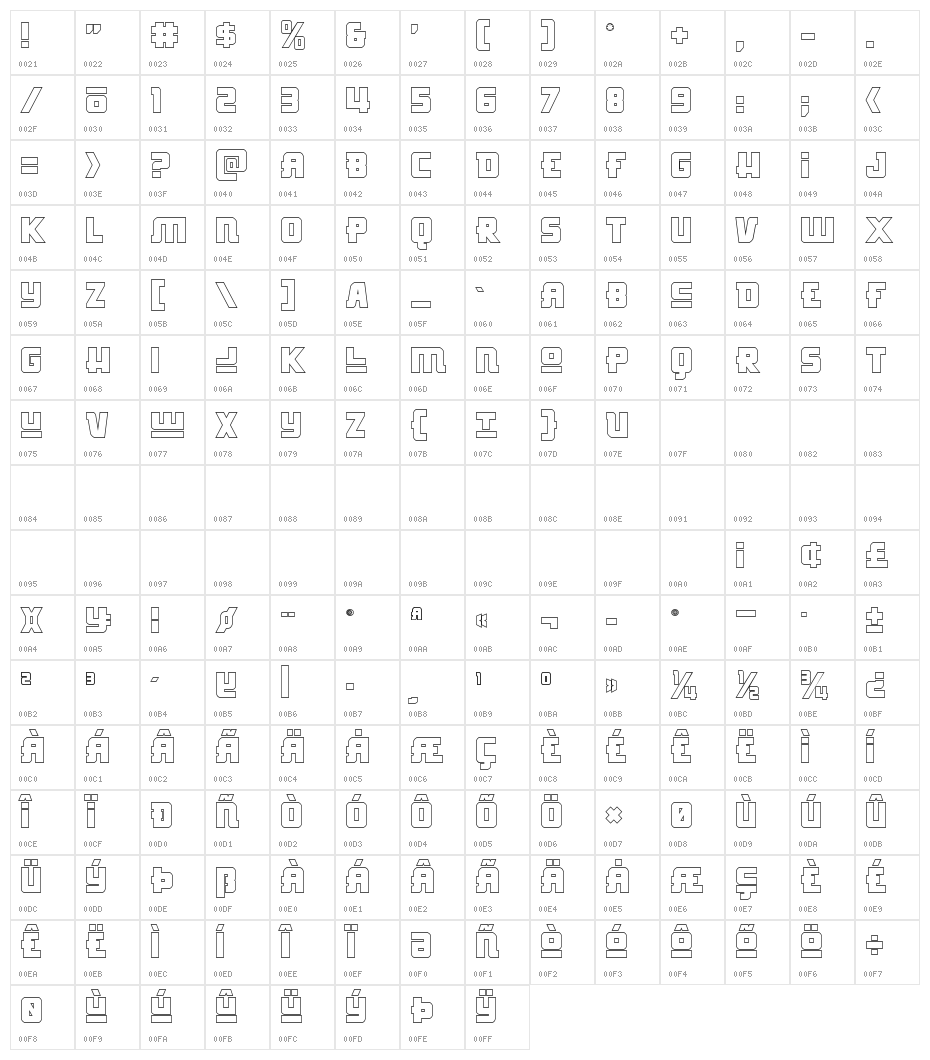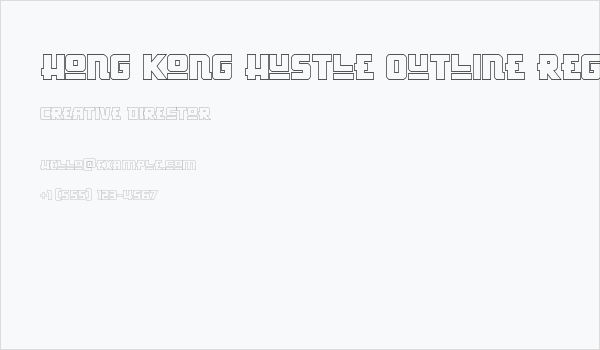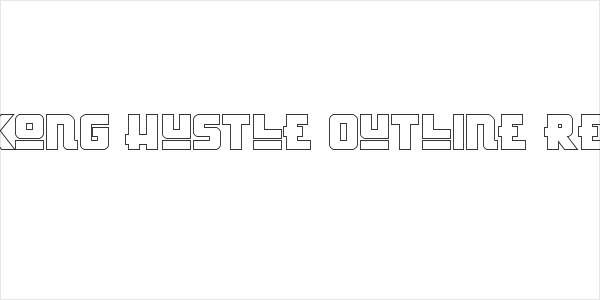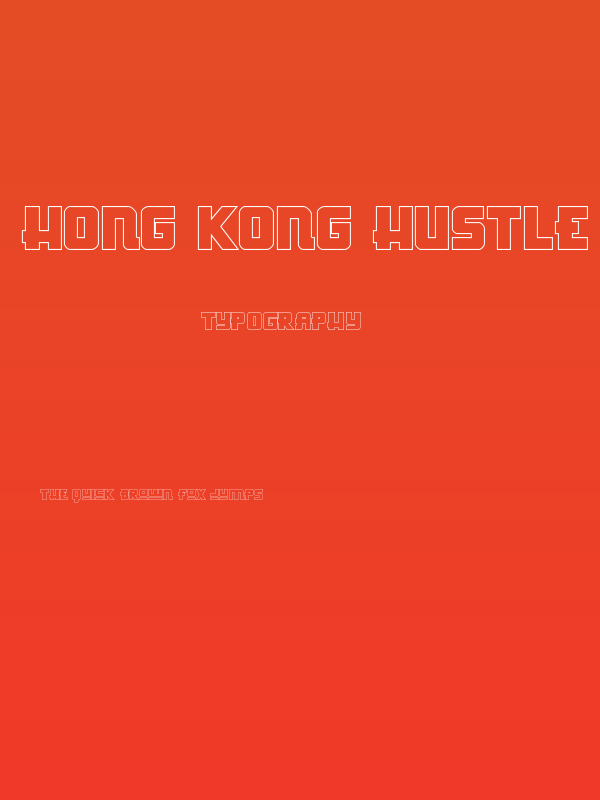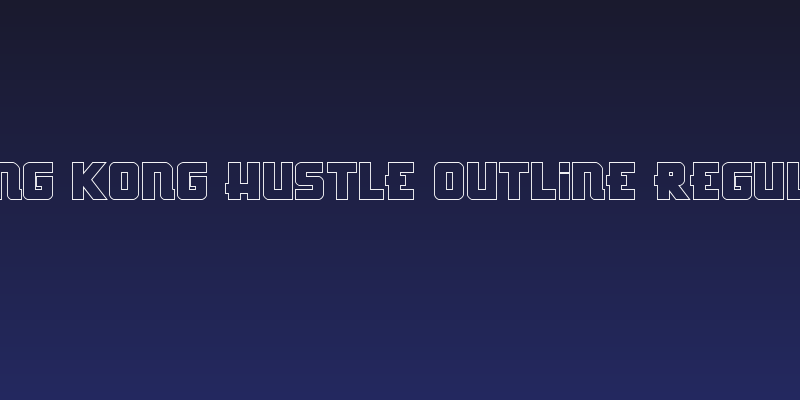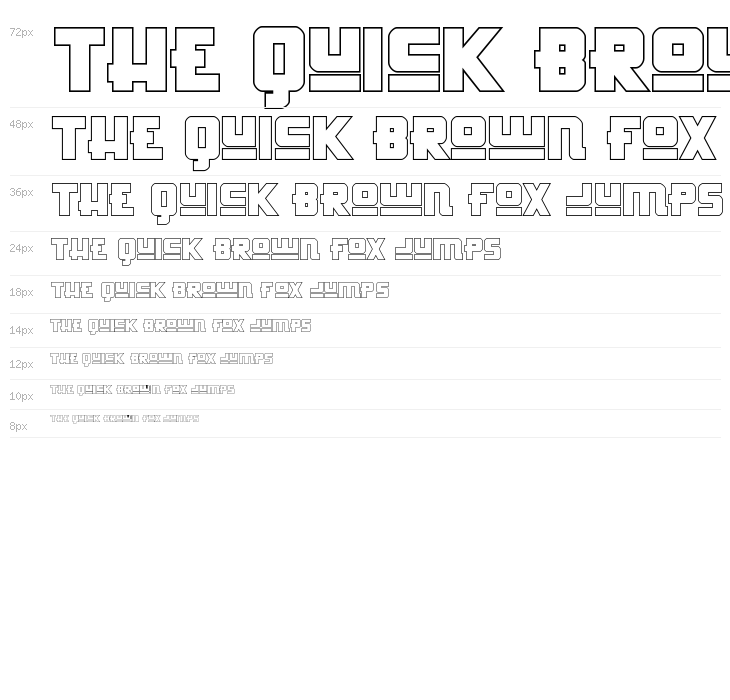
Hong Kong Hustle Outline Regular Font
Hong Kong Hustle Outline Regular Description
This font features a bold, geometric outline style that gives it a modern and urban feel. The characters are constructed with thick lines and sharp angles, creating a sense of movement and energy. The uppercase and lowercase letters share a consistent design, emphasizing uniformity and cohesion. Numbers and special characters maintain the same bold outline, ensuring a comprehensive and versatile typeface. The font's unique style makes it stand out, ideal for projects that require a strong visual impact.
| Proposed Projects | Ideal for branding, posters, headlines, and any design needing a bold, impactful typeface. |